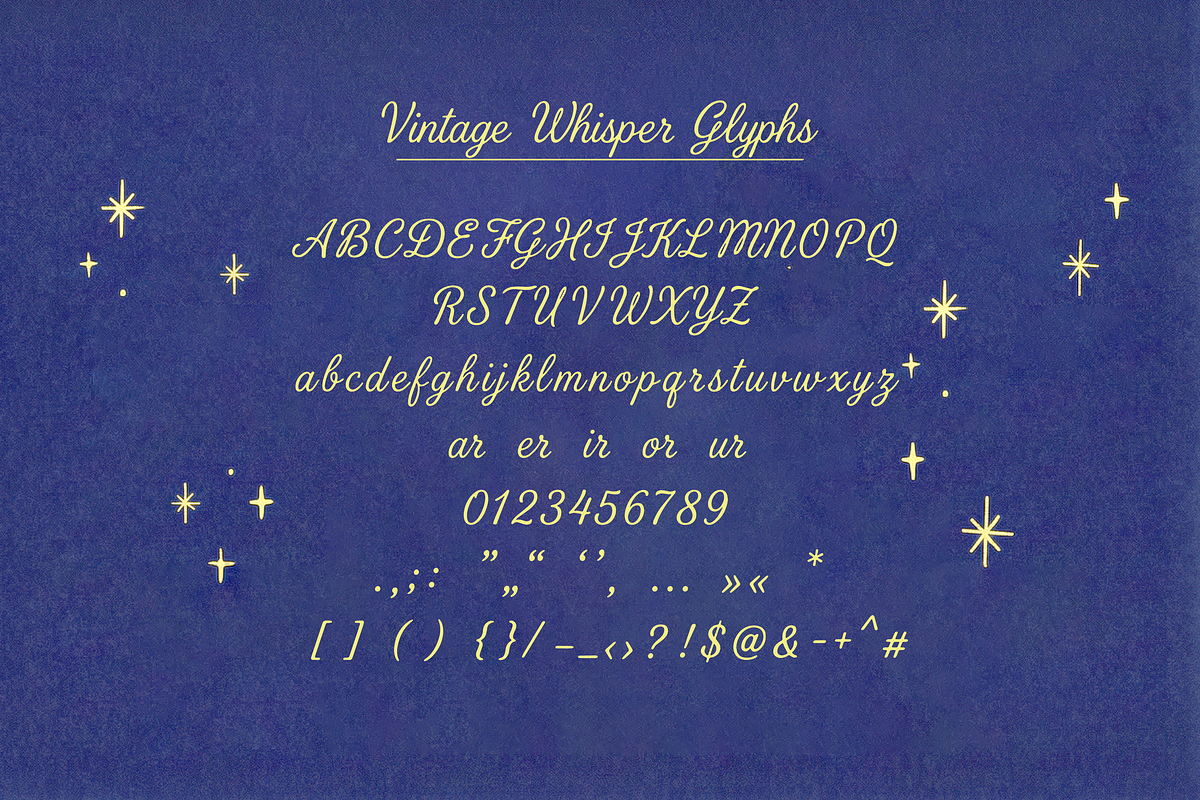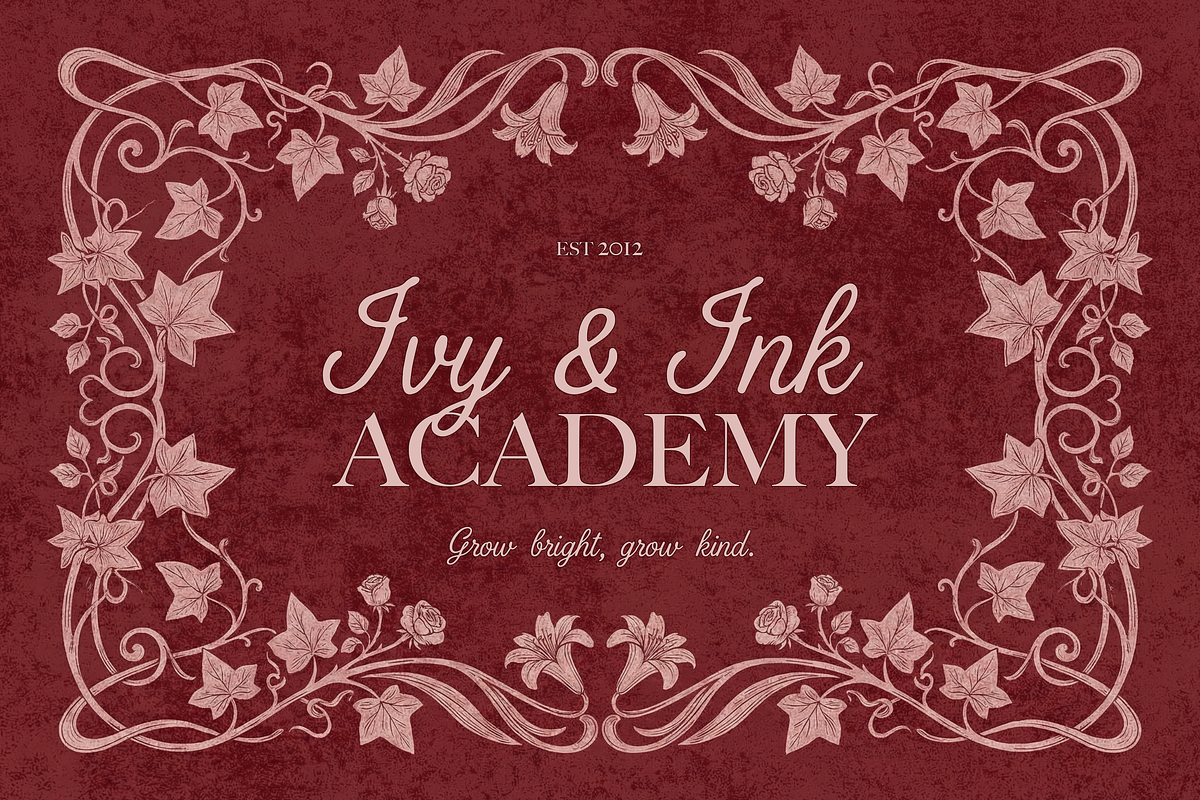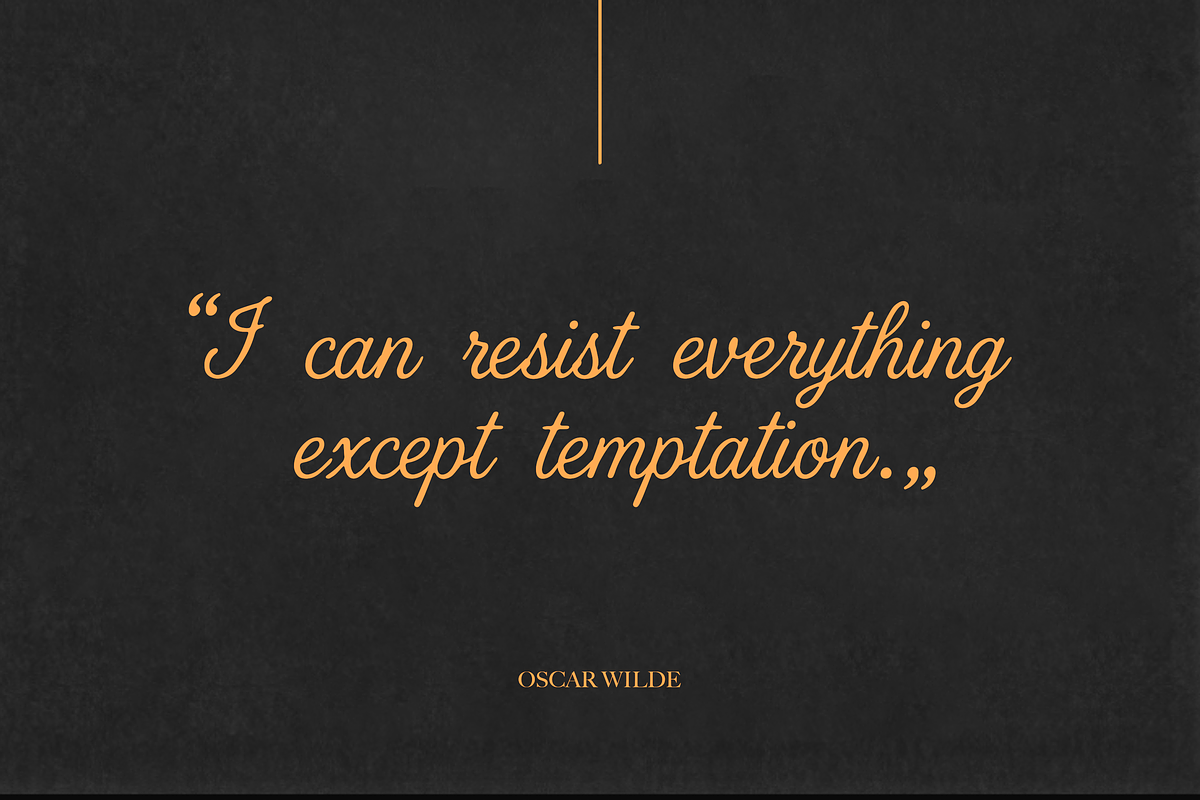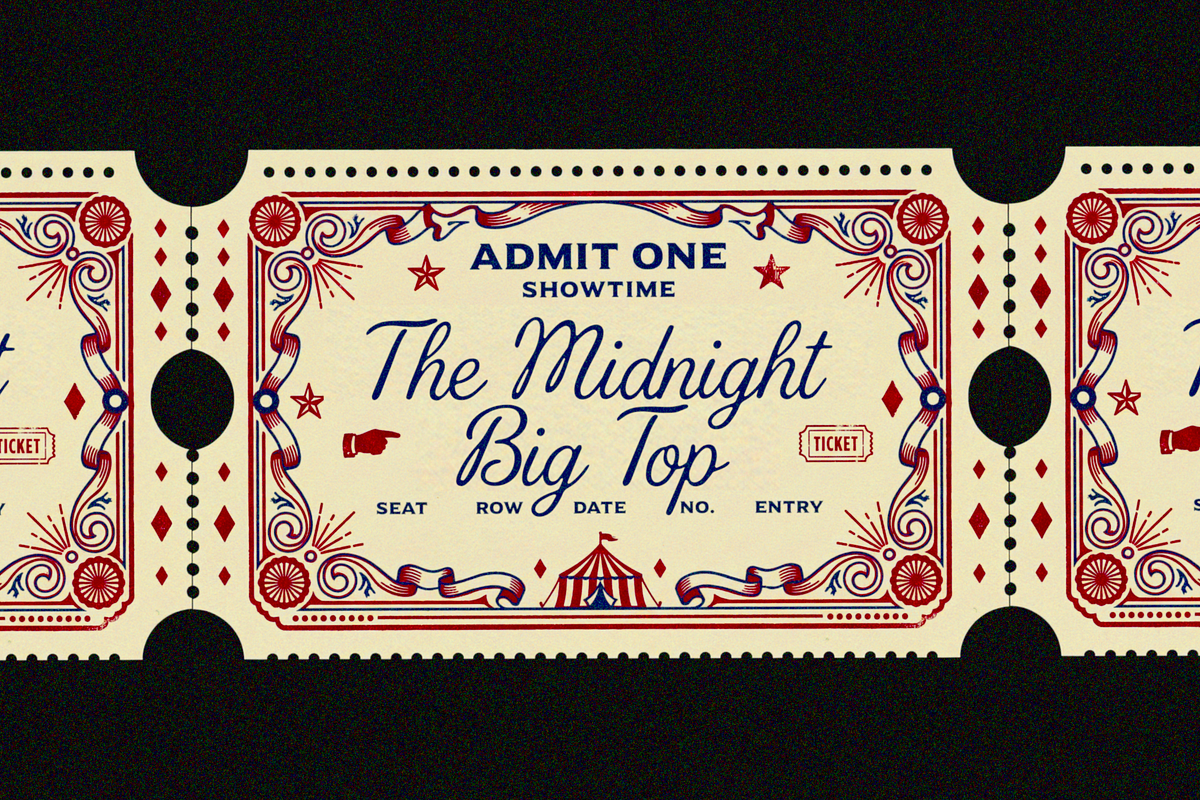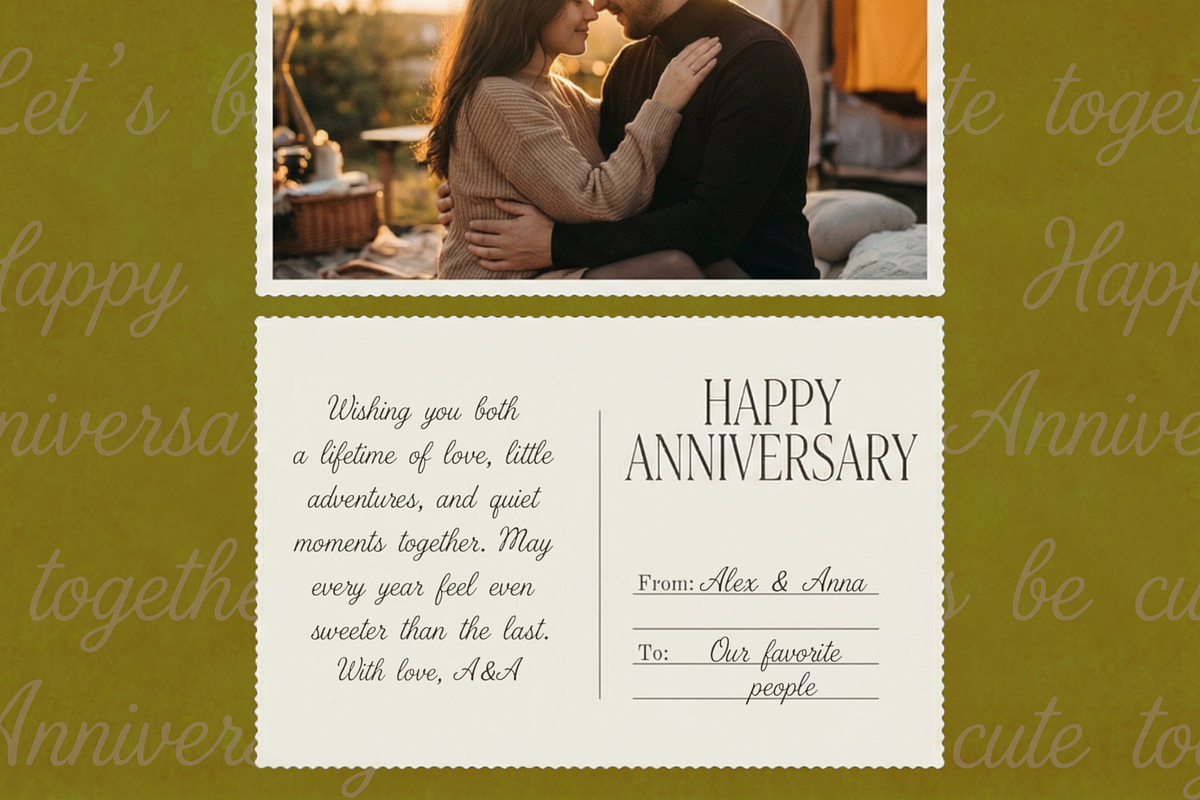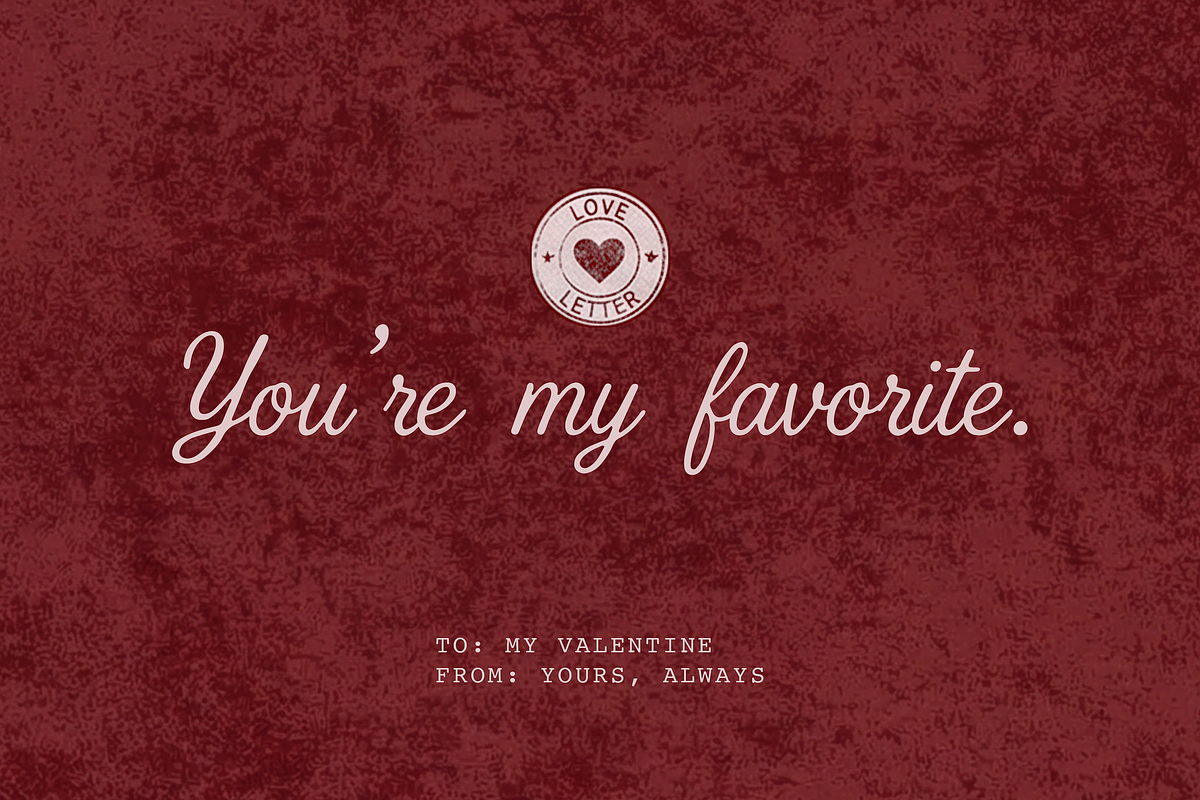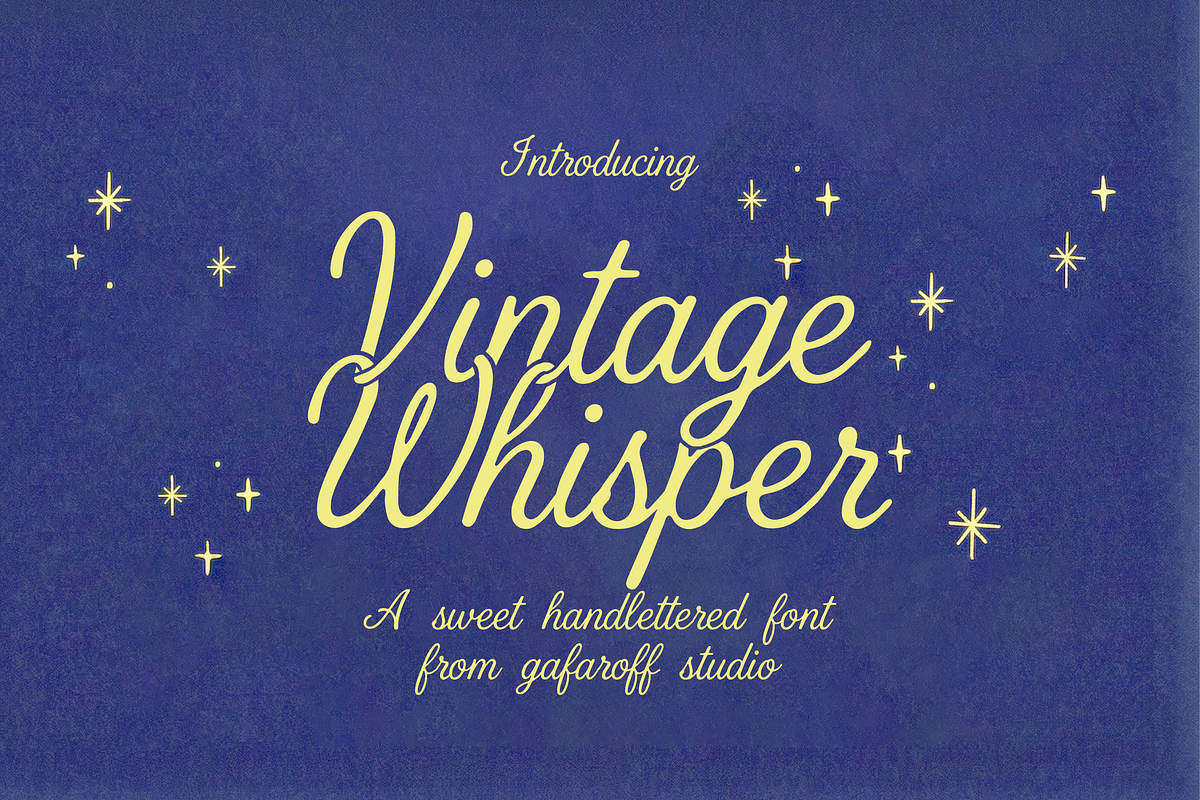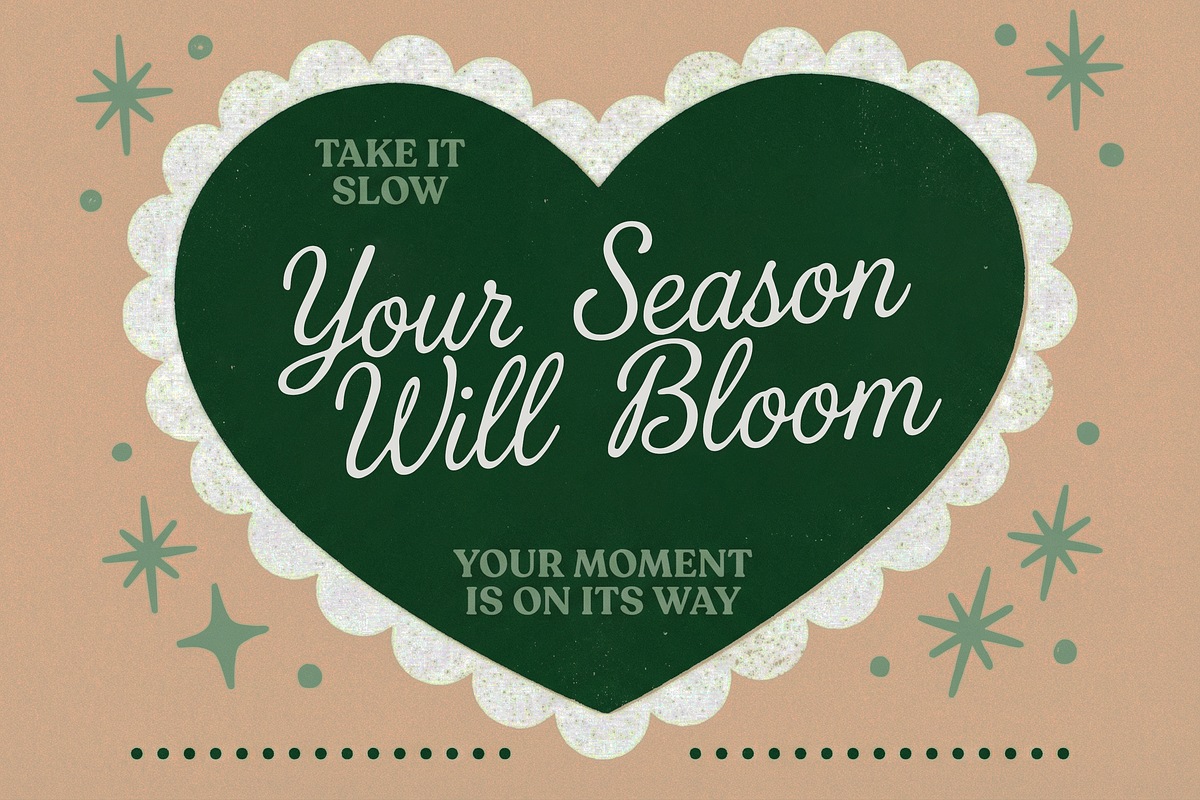
Vintage Whisper Handwritten Script
Vintage Whisper is a sweet, vintage-inspired handwritten script made for cozy, nostalgic designs. It’s smooth, slightly whimsical, and has that “handwritten love note” feeling - perfect for romantic projects and everyday branding alike.
Perfect for
- Valentine’s cards, love notes, greeting cards & postcards
- Wedding invitations, save the dates, menus & place cards
- Logos, boutique branding, labels & packaging
- Quotes, posters, social graphics, journaling & scrapbooking